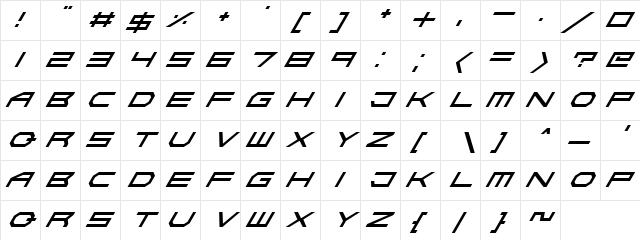
Absolute Zero Italic
| Designer | Darrell Flood |
Design Context for Absolute Zero Typeface
Absolute Zero is a composed and adaptable typeface that performs quietly and consistently across a wide range of design contexts. The dynamic lean of this cut emphasises speed and emphasis in any layout.
Pro Tip: Use Absolute Zero for emphasis, pull quotes, and subheadings where its slanted energy can add rhythm to the layout.